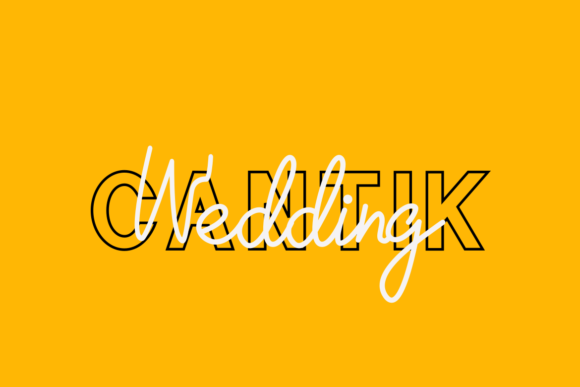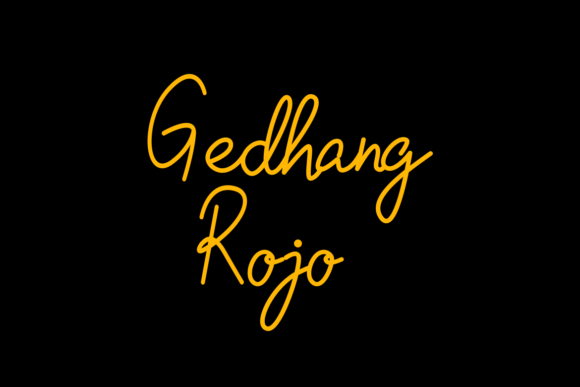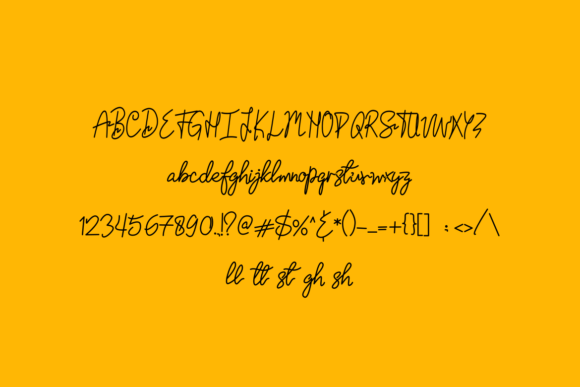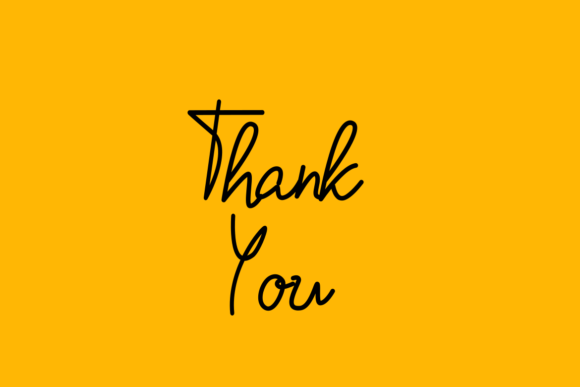
Introduction to Qatar Font
Qatar is a lovely and casual handwritten font.
Its playful style makes this font look incredibly versatile, fitting a wide range of designs, both formal and non-formal Let your imagination be the limit.
Key Features of Qatar Font